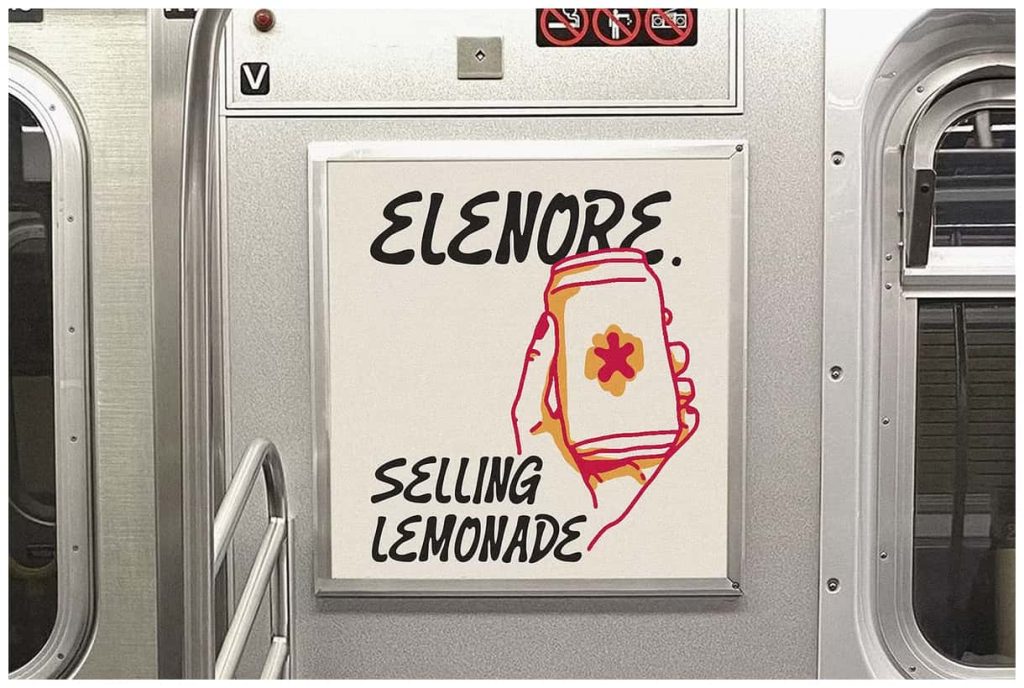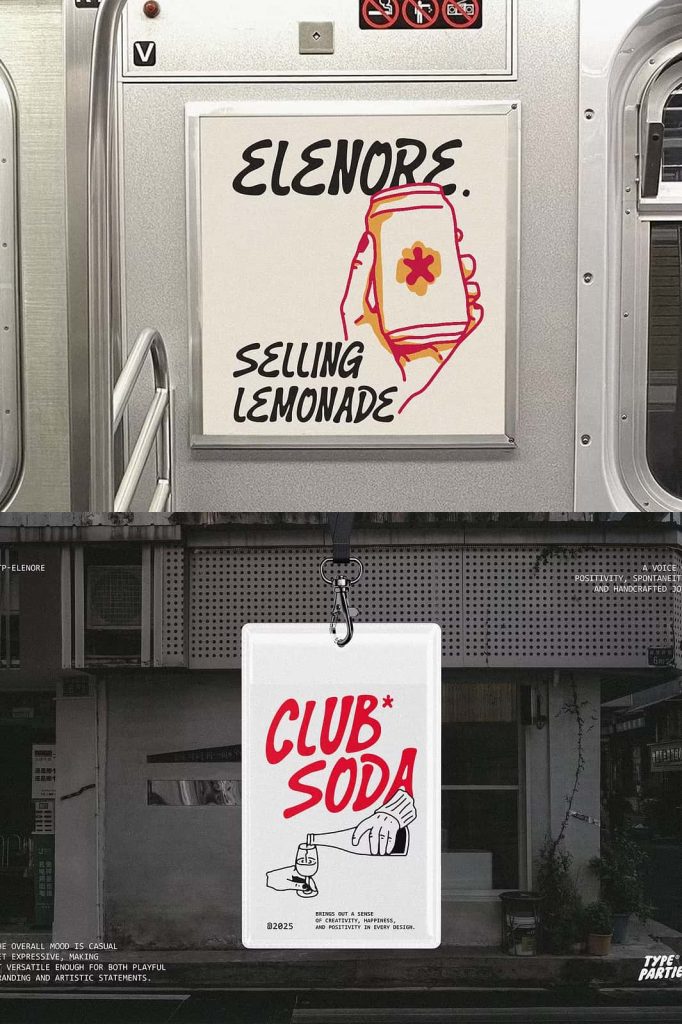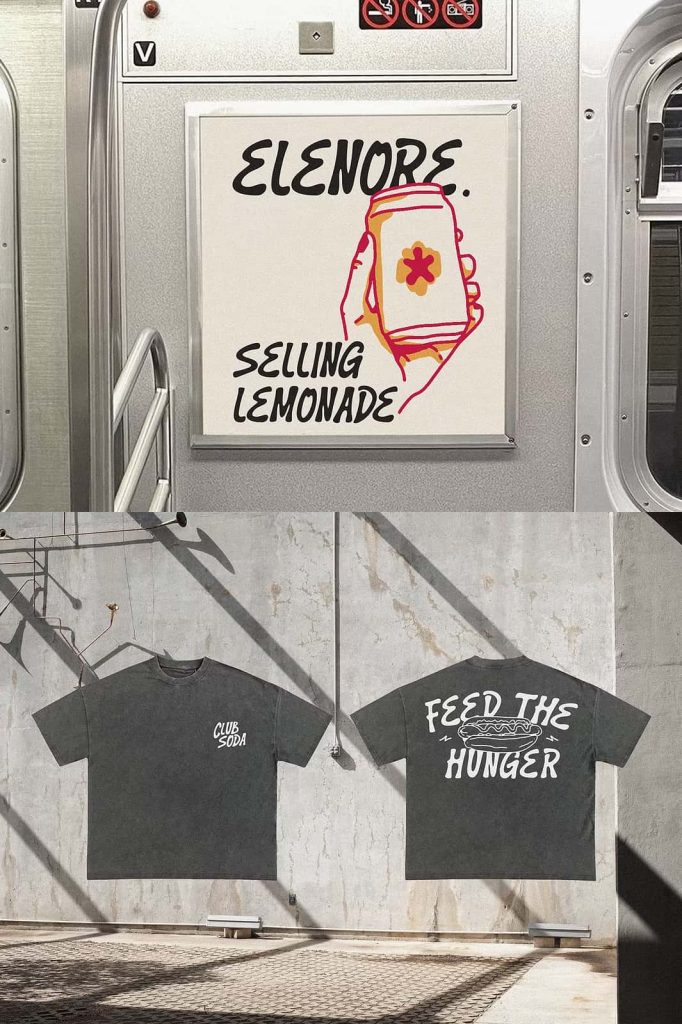
Typography is more than just design—it’s emotion captured in form. This playful hand-drawn typeface embodies the joy of imperfection and the expressive beauty of human touch. Crafted with slightly irregular, organic strokes, this typeface invites personality into every word. Rather than conforming to mechanical precision, it embraces a lively, whimsical energy that radiates authenticity and creativity.
Organic Design with Whimsical Charm
Every letterform within this typeface tells a story. The slightly uneven, hand-rendered strokes mirror the spontaneity of natural handwriting. Instead of harsh geometric edges, each curve and line feels spontaneous yet balanced, producing a rhythm that captures movement and liveliness. The tall proportions and narrow spacing help the letters dance across the page, creating visual flow and delightful energy.
This organic style draws attention through its honesty. Readers immediately sense a human presence behind the design—something crafted, not calculated. Its irregular lines breathe life into digital layouts, adding warmth and approachability to every project.
Authentic Imperfection: The Soul of the Typeface
In a world that often chases perfection, this typeface proudly celebrates imperfection. The slightly inconsistent stroke widths, subtle distortions, and delicate asymmetries make it truly one of a kind. Each imperfection contributes to the overall charm, reinforcing a sense of authenticity and individuality. Rather than feeling flawed, the imperfections enhance the design’s emotional depth.
This typeface reminds designers that beauty lies in the genuine and imperfect. Whether used for creative branding, personal projects, or artistic headlines, it communicates warmth, friendliness, and sincerity. Its authenticity becomes its most powerful design feature.
Inviting Creativity and Expression
Designers seeking to add personality to their work will find endless possibilities with this hand-drawn style. Its versatility shines in both print and digital media—ideal for packaging, children’s books, logos, posters, and editorial layouts. The playful tone encourages experimentation and imaginative combinations, making every project feel fresh and full of life.
Paired with neutral typefaces, it becomes a delightful accent that highlights key messages. Used alone, it can define a brand’s personality—artistic, cheerful, and confident. Its balance of spontaneity and clarity ensures legibility without sacrificing style.
Visual Energy Through Movement
The tall, narrow forms give this typeface a distinct vertical rhythm that captures movement and energy. Letters seem to sway lightly, adding an animated quality to text. This dynamic structure draws the eye through content naturally, enhancing engagement and visual flow. The consistent rhythm of its handcrafted strokes makes reading a pleasure while maintaining an artistic flair.
Perfect for Modern Designers Seeking Authenticity
Modern audiences crave designs that feel personal and relatable. This playful hand-drawn typeface answers that desire by combining modern usability with handcrafted soul. It’s a reminder that digital design doesn’t have to feel sterile or artificial. By incorporating this typeface, you infuse your work with a human touch that resonates emotionally.
Whether your goal is to capture whimsy, creativity, or warmth, this typeface delivers a visual voice that speaks directly to the heart. Its handcrafted nature ensures that every use feels unique, lively, and full of genuine character.
Conclusion
This playful hand-drawn typeface transforms text into an expressive experience. It blends artistic imperfection with thoughtful design, making it ideal for brands and creators who want their work to feel warm, engaging, and real. Through its authentic strokes and natural rhythm, it celebrates creativity, individuality, and the beauty of the human hand in design.